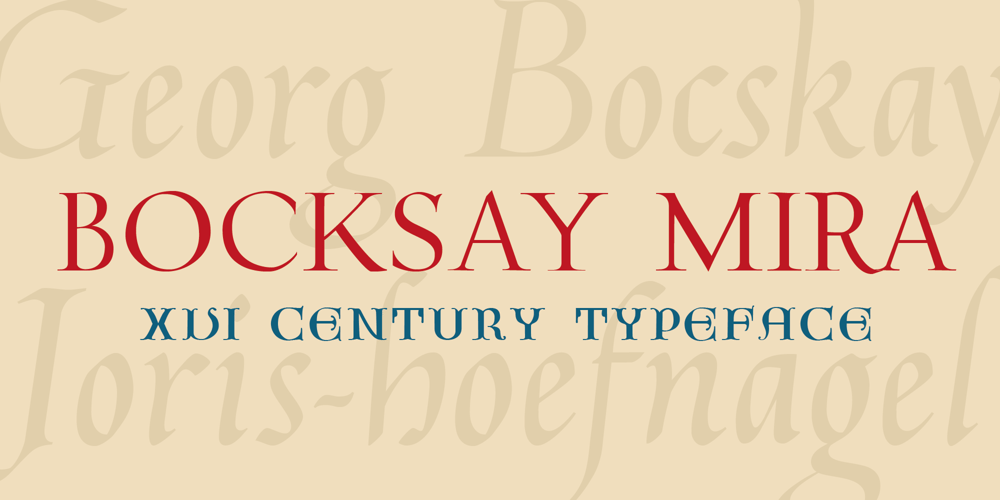
Bocksay Mira
Bocksay Mira font
Bocksay Mira Font Family was designed by Manuel Nieves and published by Trifásica Studio. Bocksay Mira contains 2 styles and family package options. Bocksay Mira is a text font family inspired by the manuscript Mira Caligraphiae Monumenta created between 1561 and 1596 by Georg Bocskay and Joris Hoefnagel for the Holy Roman Emperor. All shapes were taken from the original records in both regular and italic style: lower case (p. 5, 72), uppercase (p. 47, 121), small caps (p. 122, 7). The high contrast forms and the wide spacing makes this family suitable for long texts but also for titling uses, having always that calligraphic and stylish look. Find the original script here